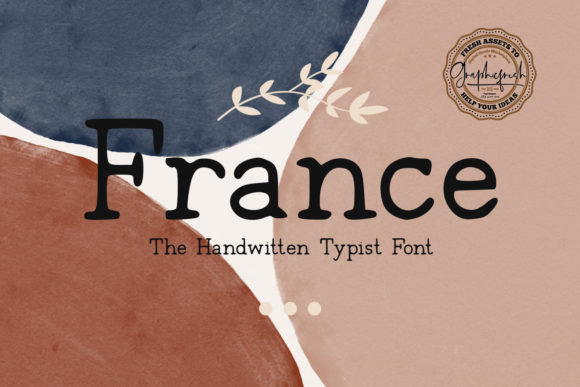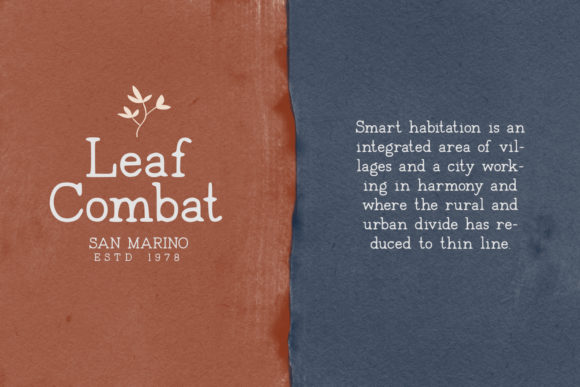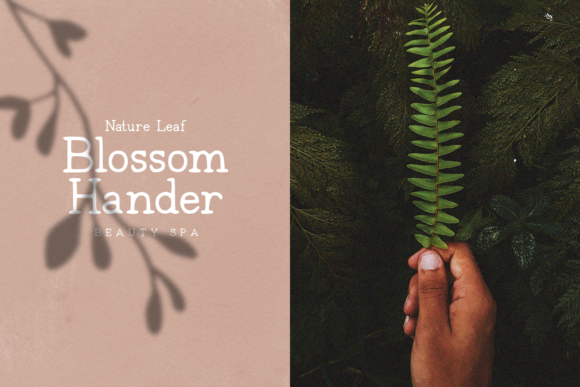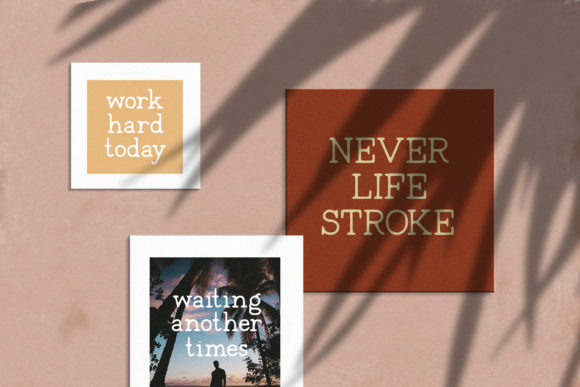
France Font: Vintage Serif Typography for Logo Design
About the France Font
The wait is over! The incredible France Font is now available for your design toolkit. France is a serif font inspired by typewriter letters. Get inspired by its vintage look & feel!
France Font’s vintage typewriter aesthetic makes it ideal for headlines, short text blocks in posters, and branding elements requiring a retro feel. It works particularly well for projects evoking nostalgia, such as vintage-inspired clothing brands or coffee shops. Avoid using it for body text or lengthy paragraphs; its character is best showcased in impactful, concise applications.
Its slightly quirky, yet refined personality pairs well with clean sans-serif fonts like Open Sans for a balanced contrast. For a more playful approach, consider pairing it with a rounded geometric sans-serif such as Circle Rounded. A script font like Great Vibes could add a touch of elegance to projects using France for headings, but only when used sparingly as a secondary element.
France Font’s overall personality is best described as charmingly nostalgic and slightly quirky, maintaining a sense of sophistication. It successfully blends a vintage feel with a modern sensibility, suitable for brands that value authenticity and a touch of retro style.